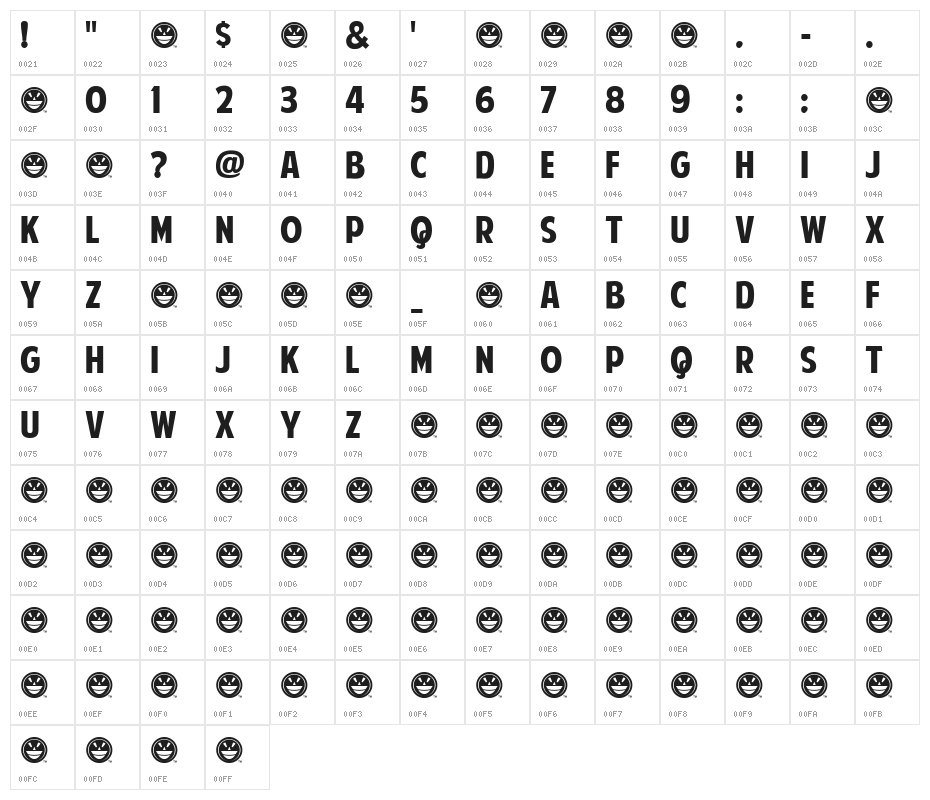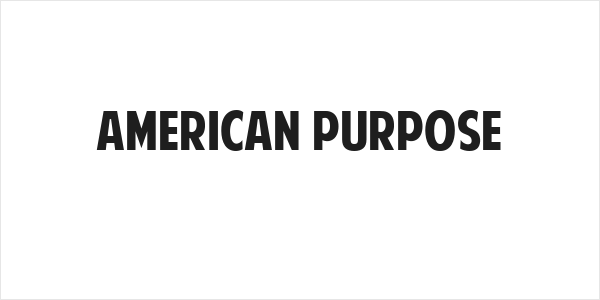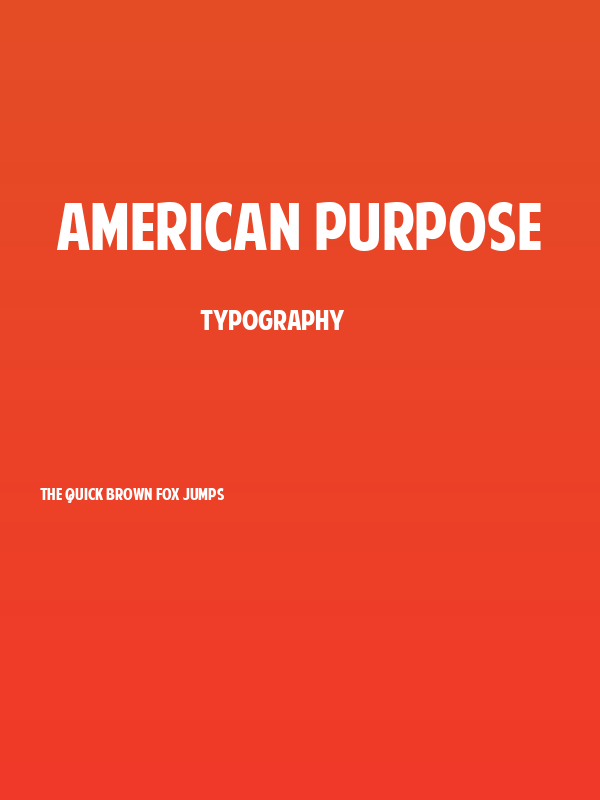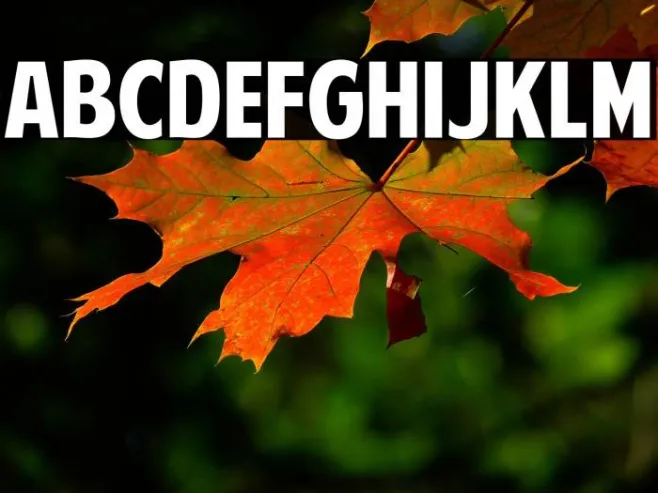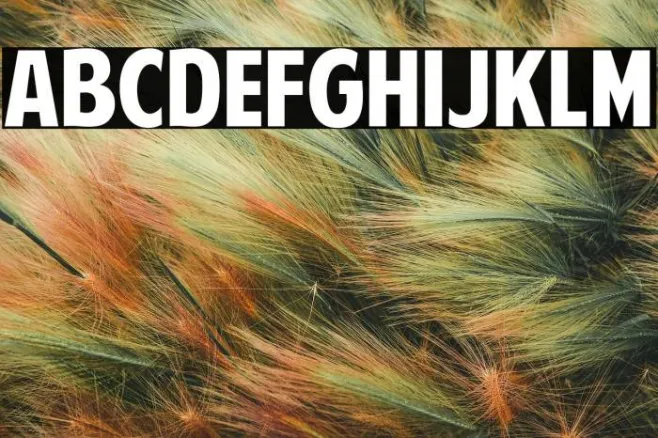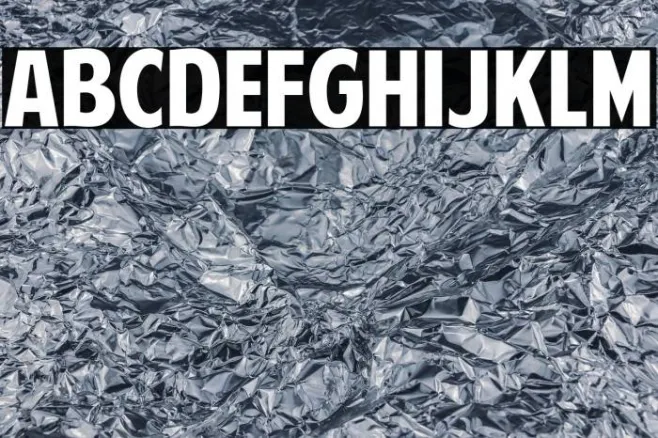
American Purpose Font
American Purpose Description
This font features bold, uppercase and lowercase letters with a strong, impactful presence. The characters are designed with a modern, sans-serif style, showcasing clean lines and a uniform stroke width. The numbers and special characters maintain the same boldness, ensuring consistency across all elements. The font's design is straightforward yet powerful, making it suitable for various applications where clarity and emphasis are required.
| Proposed Projects | Ideal for branding, advertising, headlines, posters, and any project requiring a strong visual impact. |